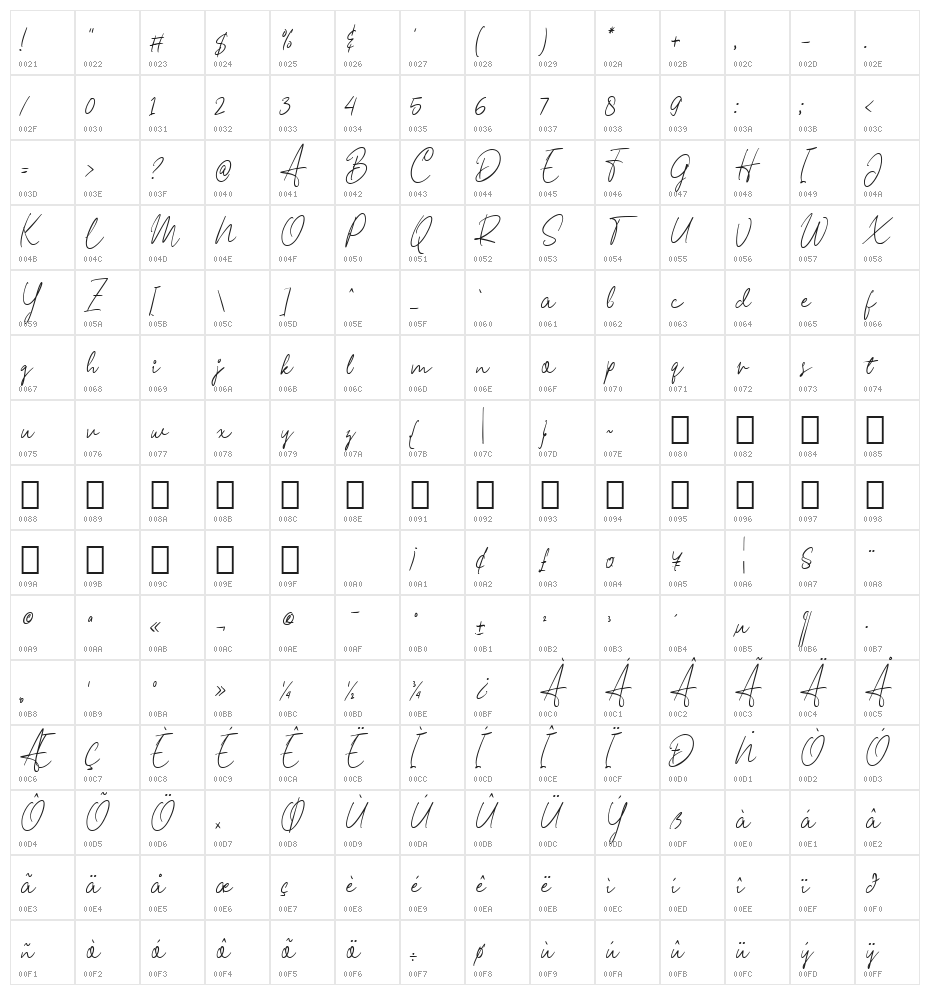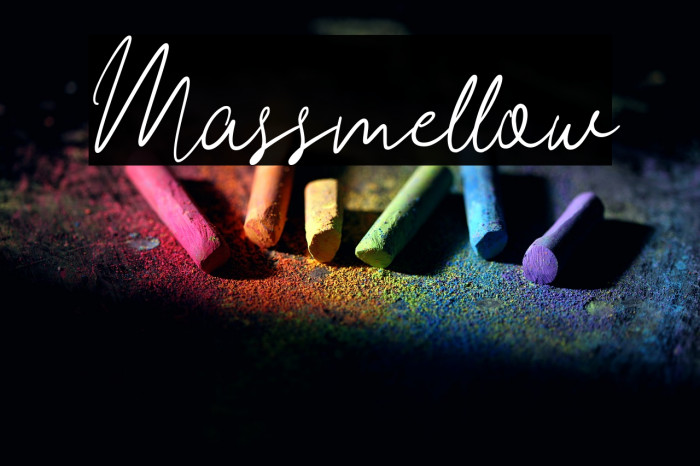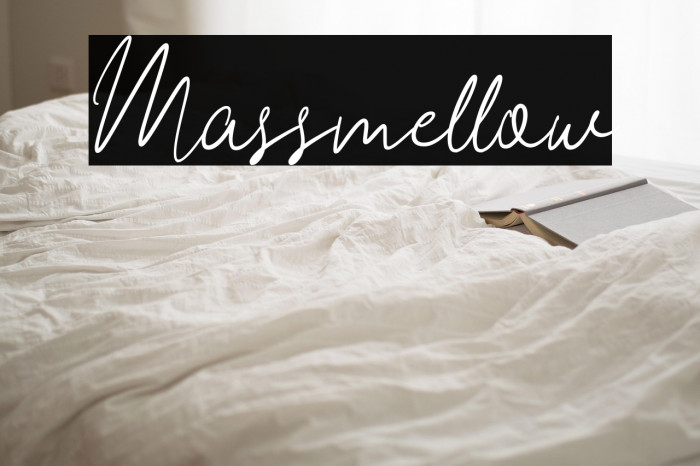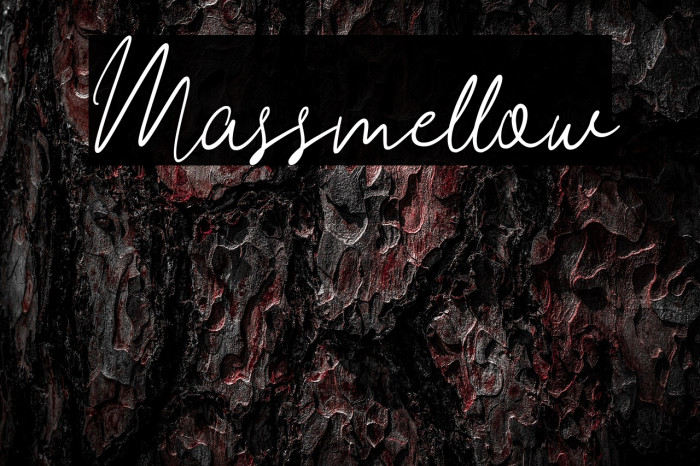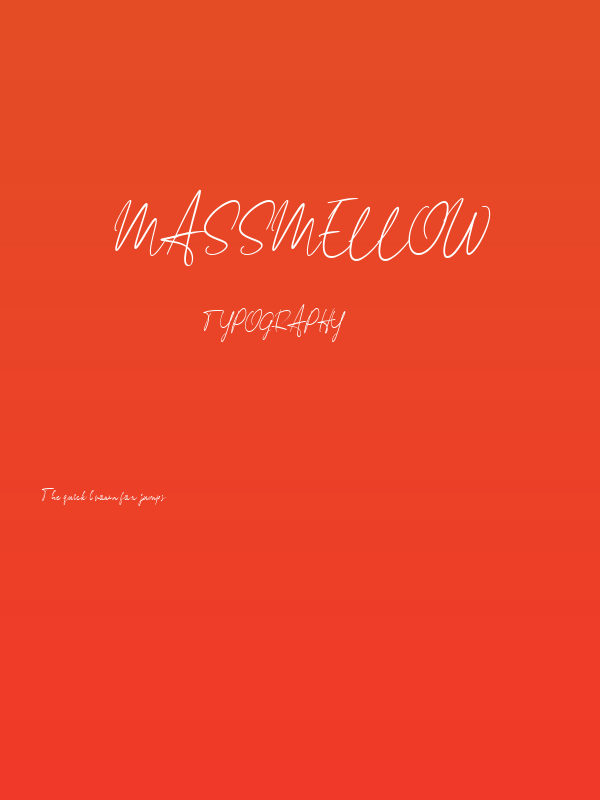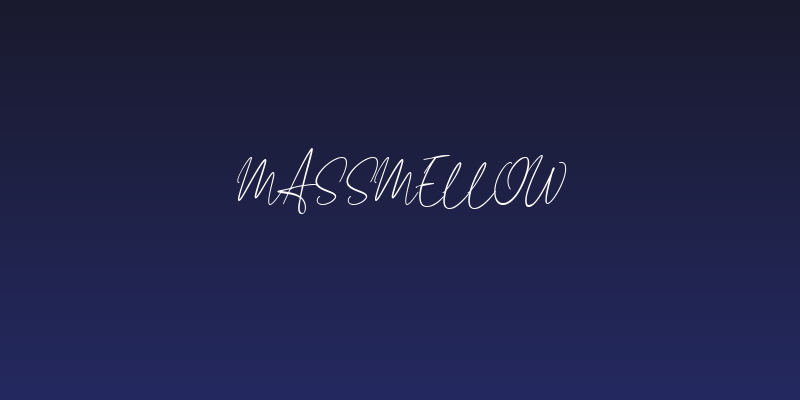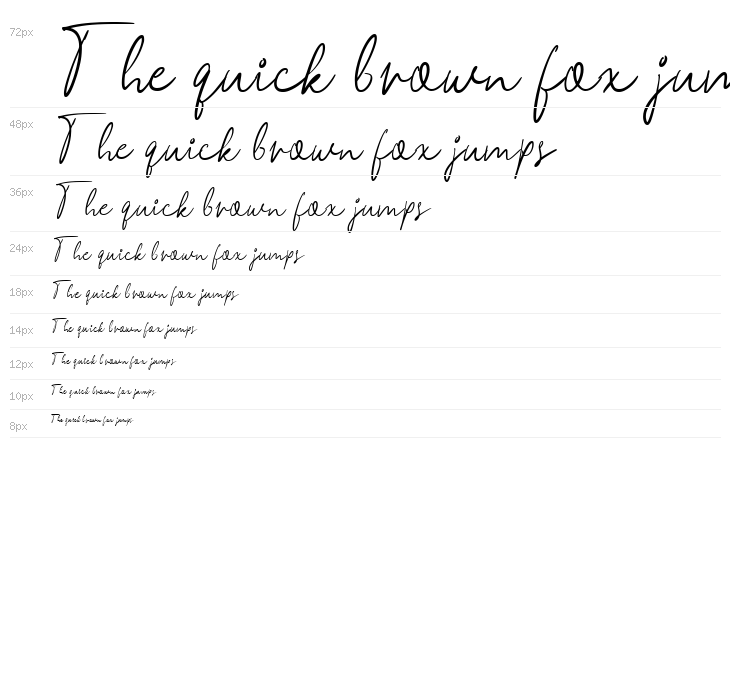
Massmellow Font
Massmellow Description
This elegant script font features a flowing, handwritten style with a natural and organic feel. The letters are connected, creating a seamless and fluid appearance that mimics the look of cursive handwriting. The strokes are smooth and slightly varied in thickness, adding a touch of sophistication and charm. The uppercase letters are tall and graceful, while the lowercase letters maintain a consistent baseline, enhancing readability. This font includes a full set of numerals and a variety of punctuation marks, making it versatile for different design needs. Its overall aesthetic is both modern and timeless, suitable for projects that require a personal and artistic touch.
| Overall Style | Elegant, Artistic |
| Use Case | Logos, Invitations, Personal projects |
| Proposed Projects | Ideal for wedding invitations, greeting cards, branding, and logo design. |